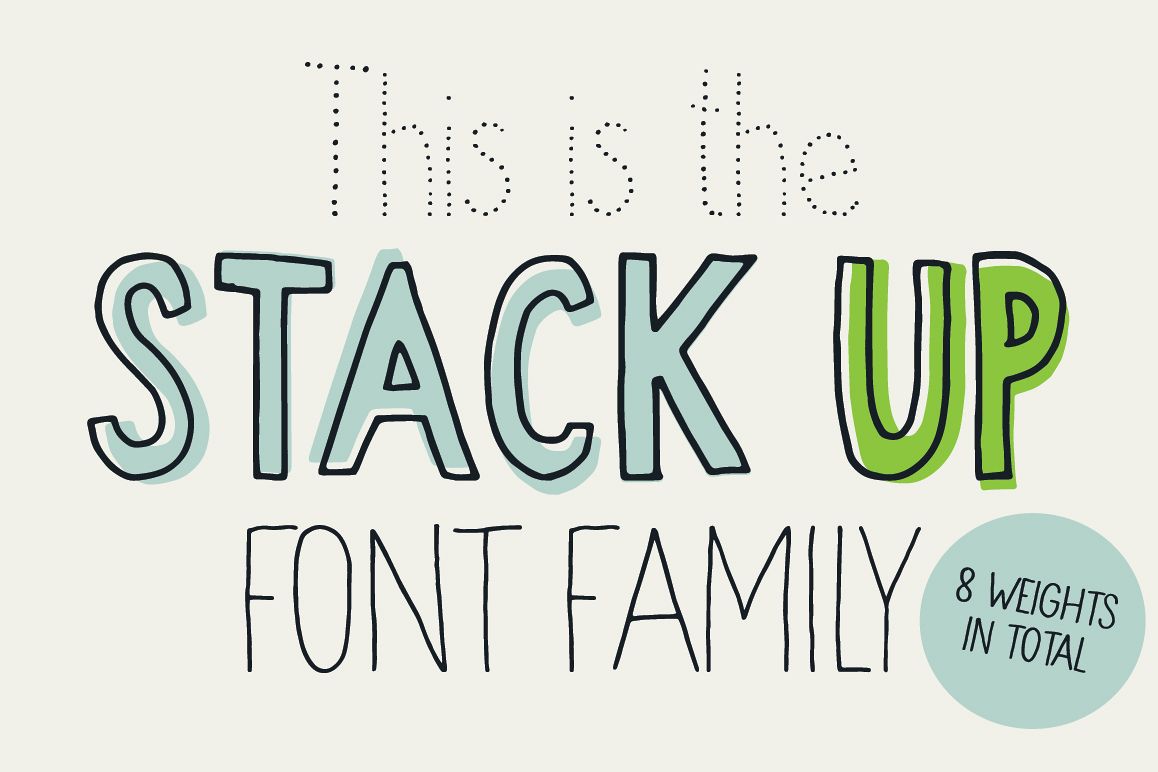
Stack up - The universal font family
Stack up Bold
Stack up Light
Stack up semi-bold
Stack up
Stack up dotted
Stack up outline-dotted
Stack up Extra Light
Stack up double
It started with a small idea - create the whole versatile font family for everyone. Include something regular for captions, something bold for headlining and something light for texts down there. And Here it is, the Stack Up Font Family:
Arriving in 8 variations. Beginning with really soft "dotted" variation, continuing with thin and extra thin versions, ending up with "double" and "inside-dotted" specials. It's simple, versatile and easy to use.
- Stack up Dotted
- Stack up Extra Thin
- Stack up Thin
- Stack up Regular
- Stack up Bold
- Stack up Shadow
- Stack up Double
- Stack up Inside-Dotted